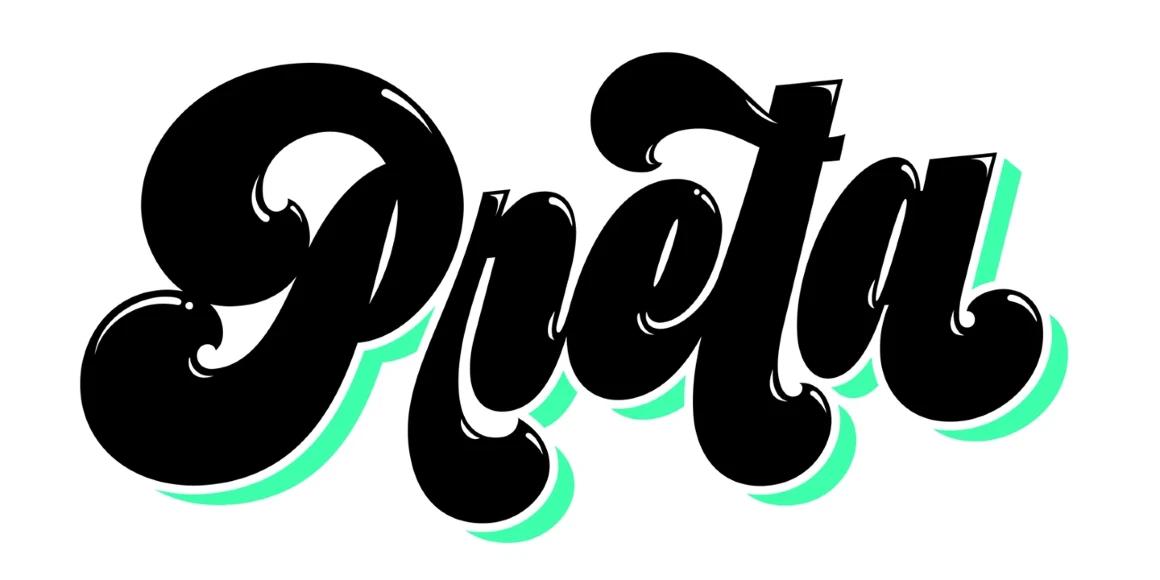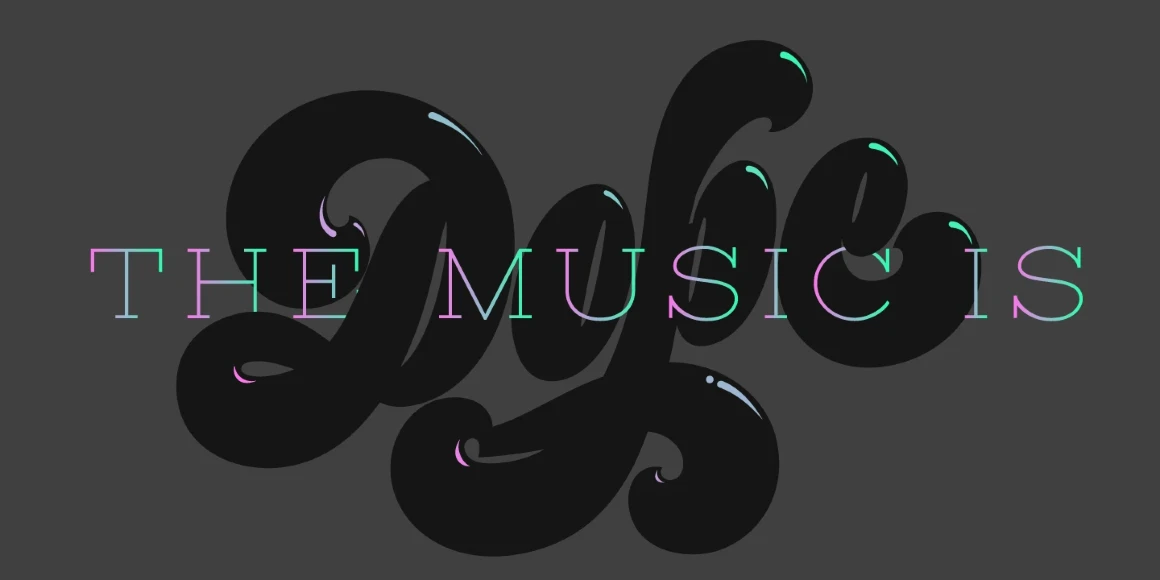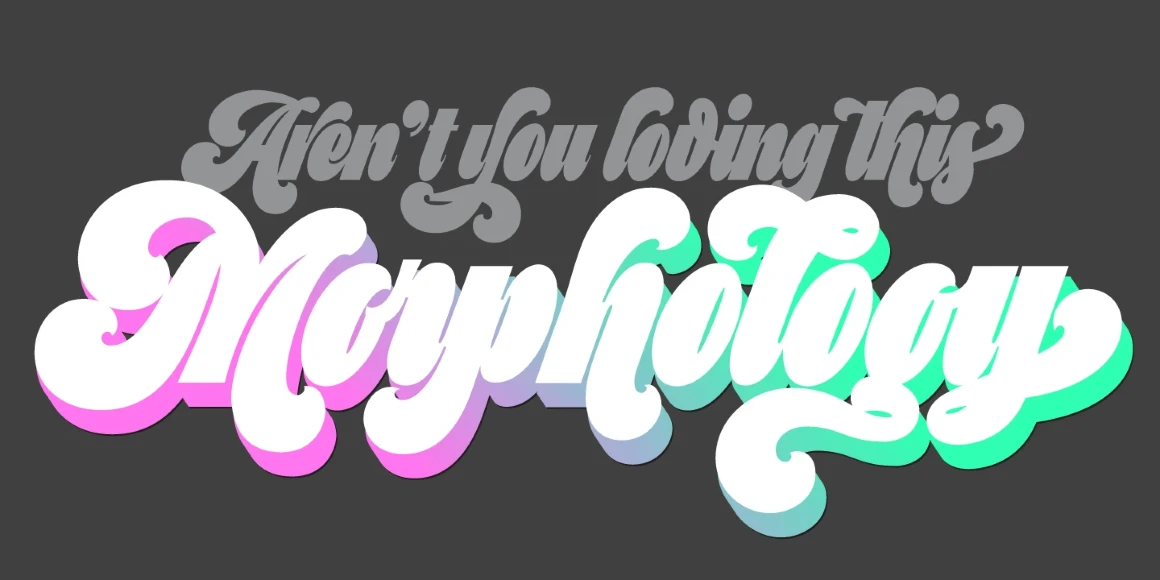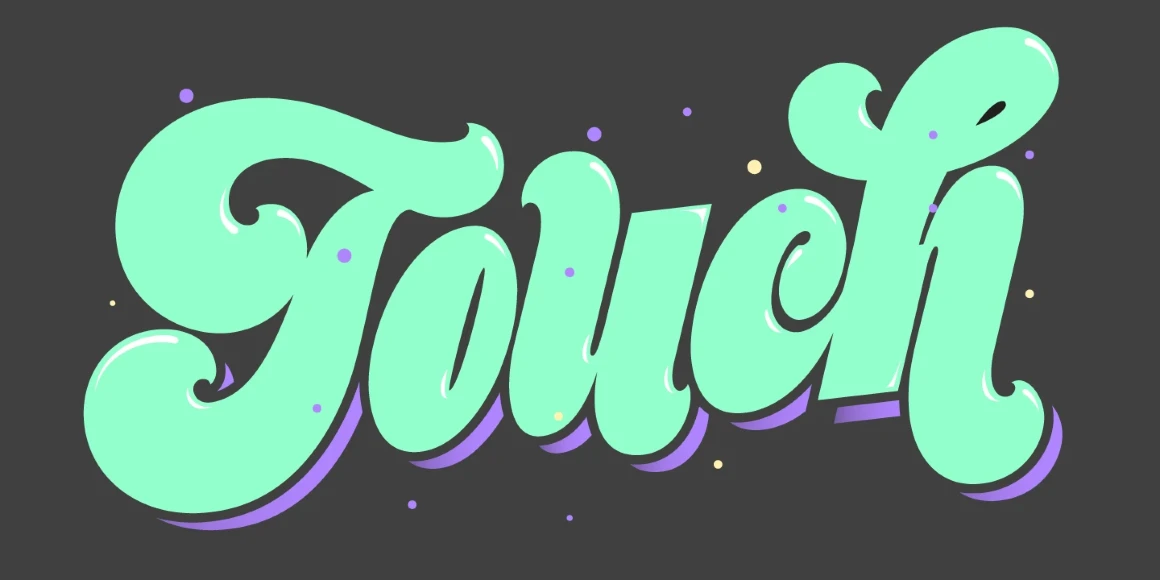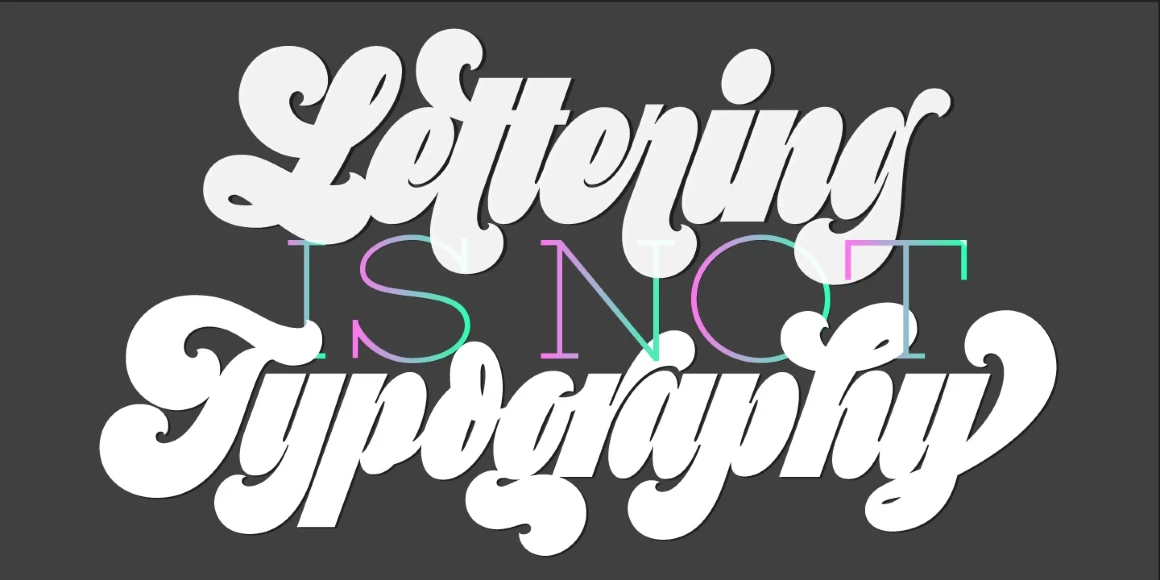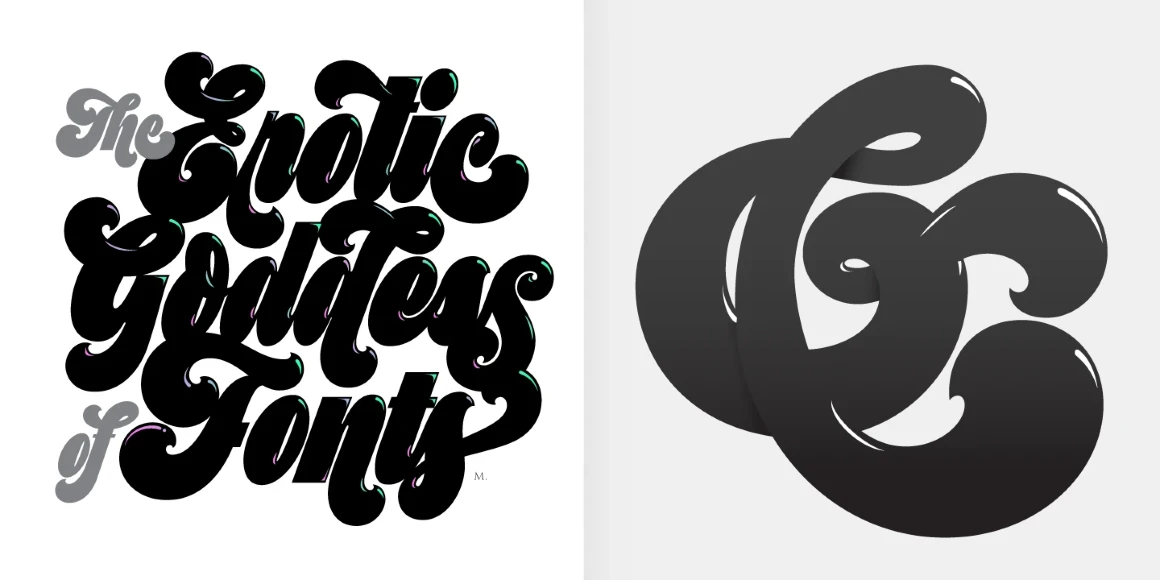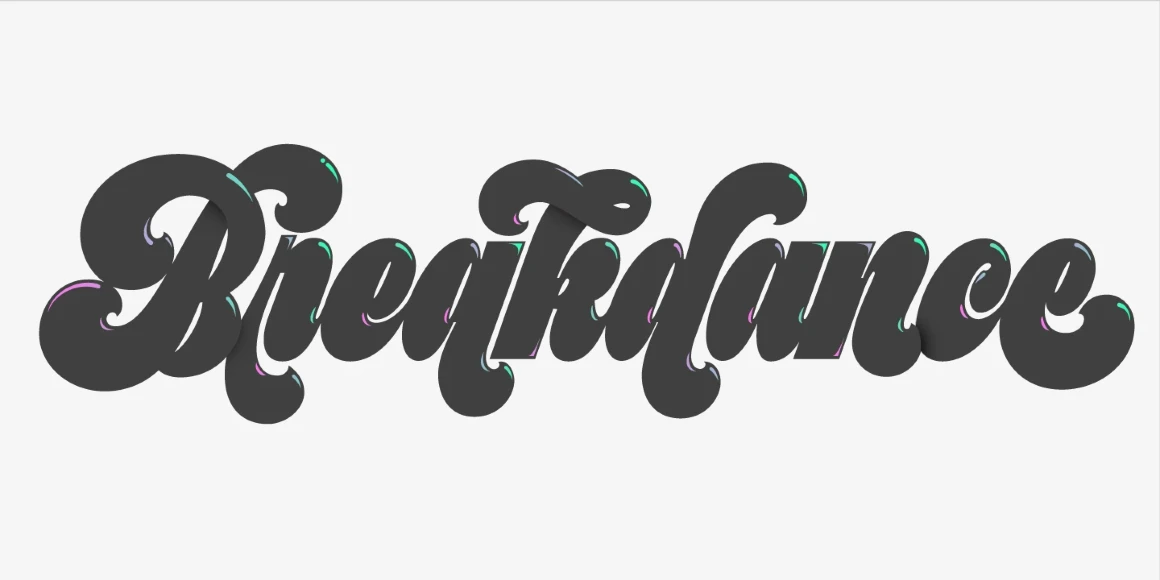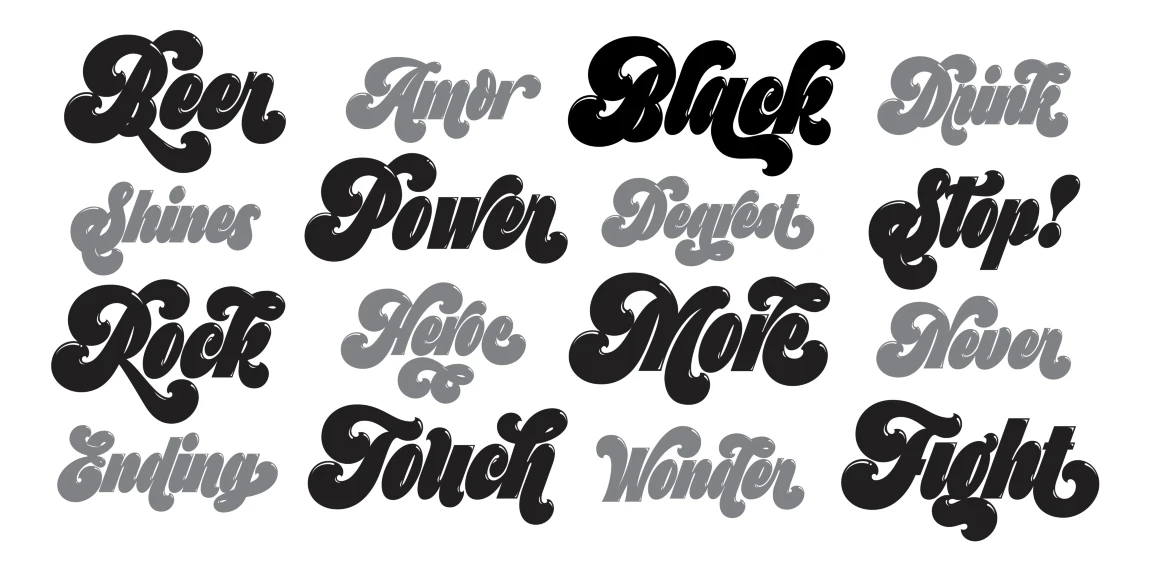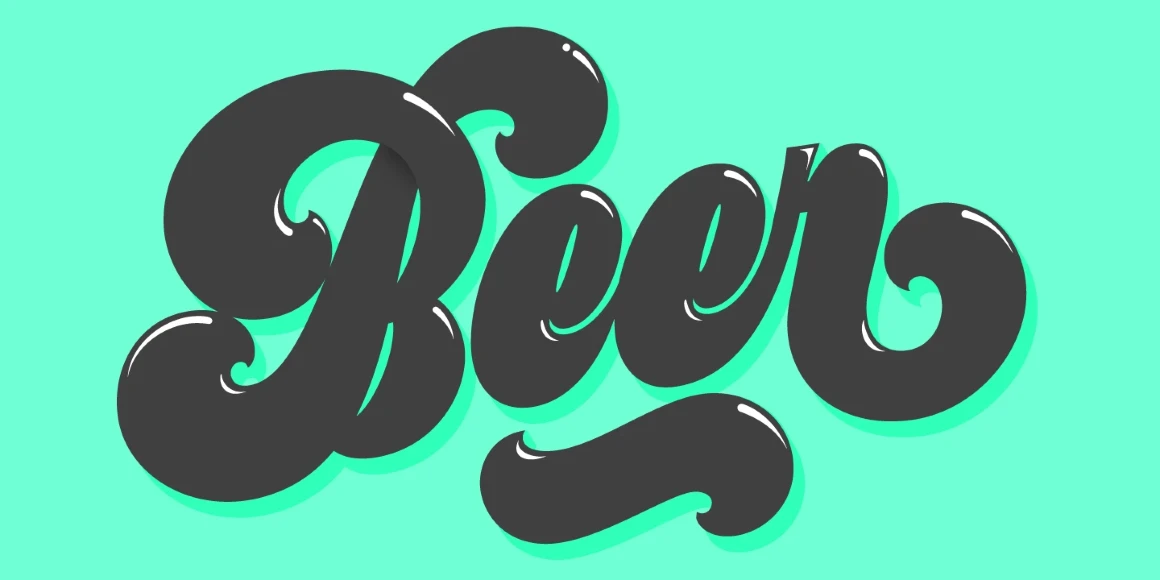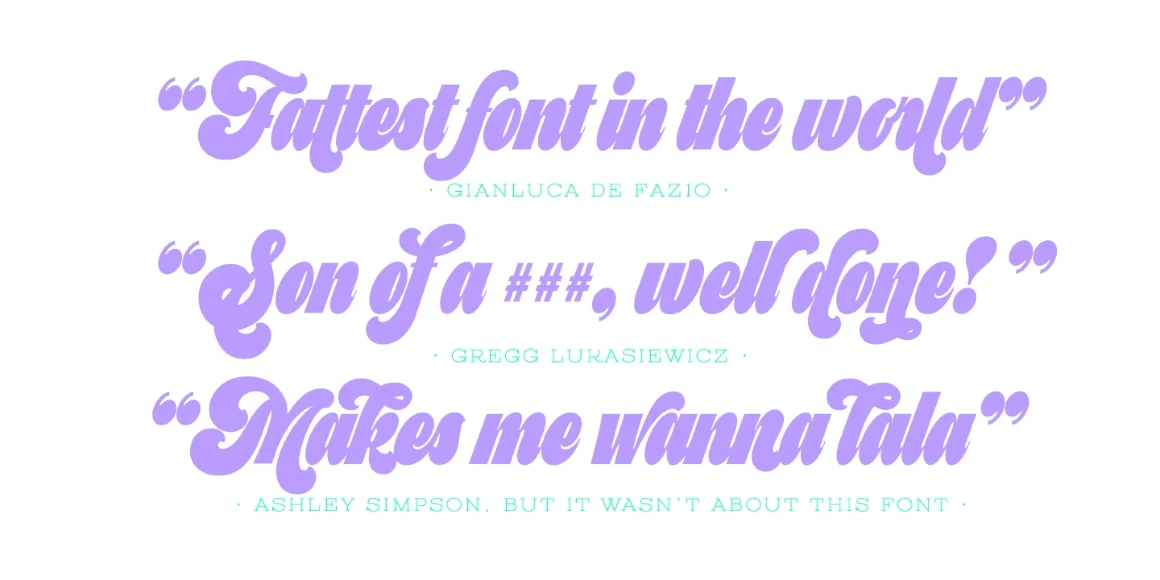
Preta
From Sproviero Type
Preta is a bold and juicy maximalist script full of swagger, built for display use. Inspired by a striking mix of copperplate calligraphy and early Art Nouveau lettering, its dense forms and tight rhythm deliver a powerful visual punch. Preta Capitals, monolinear and modern, offer the perfect typographic foil. With playful swashes, layered styles, and sunlit highlights, Preta is ideal for modern brands, expressive logos, movie titles, oversized headlines, and eye-catching posters.
Designed by Maximiliano Sproviero
Preta Script Printed
Preta Script
Preta Script Ao Sol
Preta Script Ao Sol Solo
Preta Script Small
Stylistic Set 8
Stylistic Set 9
Stylistic Set 10
Stylistic Set 11
Stylistic Set 12
Stylistic Set 13
Stylistic Set 14
Stylistic Set 15
Stylistic Set 16
Stylistic Set 17
Stylistic Set 18
Stylistic Set 19
Stylistic Set 20
Titling
Initial Forms
Final Forms